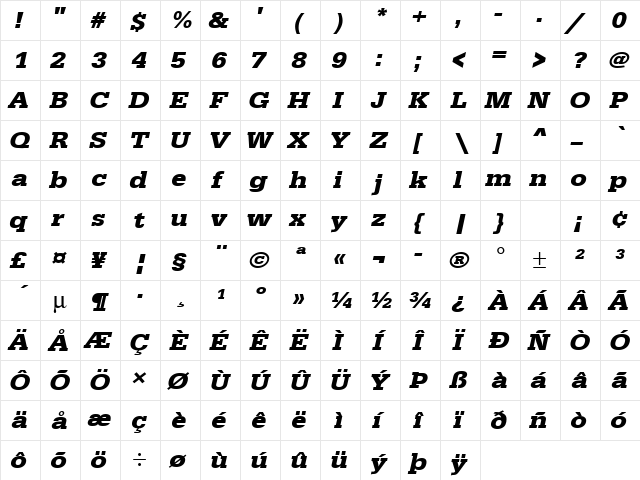
URWEgyptienneTExtWid Bold Oblique Font Preview
Design Context for URWEgyptienneTExtWid Typeface
URWEgyptienneTExtWid is a composed and adaptable typeface that performs quietly and consistently across a wide range of design contexts. Its italic angle brings a sense of urgency and motion to the letterforms. The heavy weight commands attention and anchors typographic hierarchies.